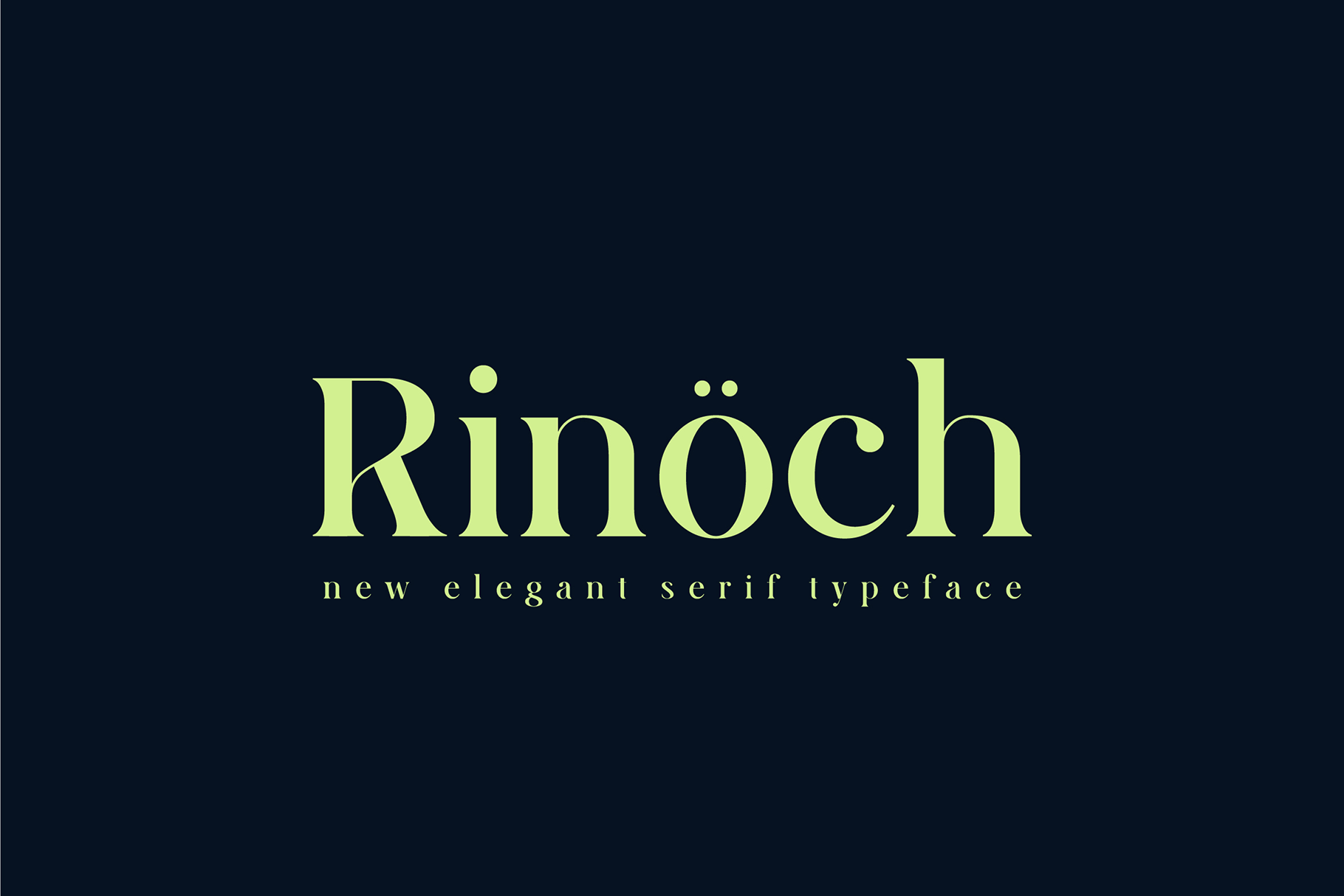
Rinoch | Serif Typeface
Rinoch | it's a skinny bold serif font with alternate characters it's make perfect to create Elegant Design, Modern, Vintage, Retro and more. So Choice any Glyphs and create the awesome typography and design use this.